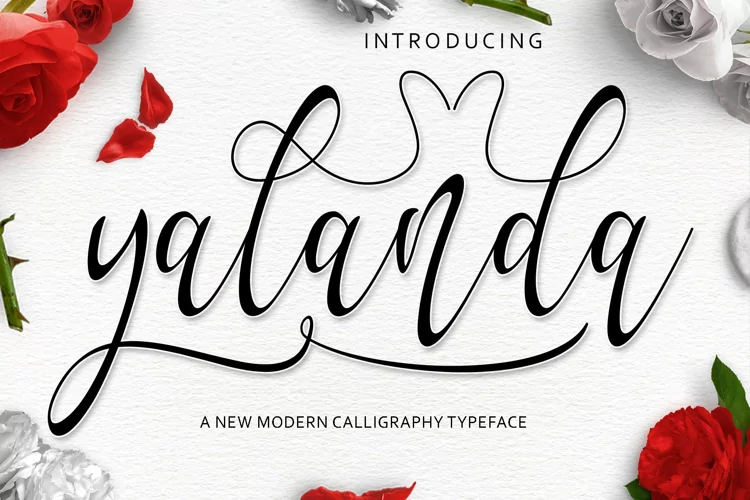
Yolanda Handwritten
Introducing, this is our newest product, we call this product Yolanda,
It looks amazing with sweet touches and beautiful curves in each letter. Yolanda fonts are perfect for: wedding invitations, fashion magazines, logos, signatures, photography, watermarks, wall displays, social media,